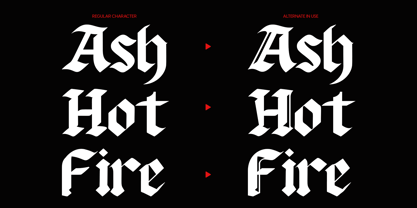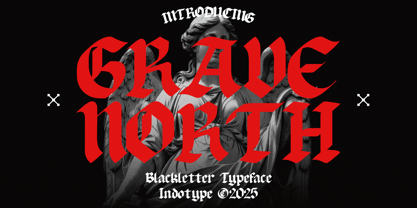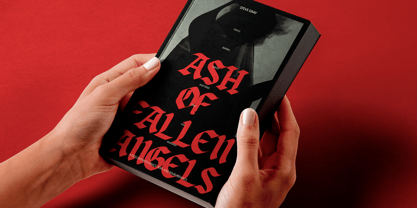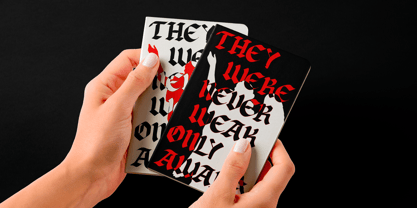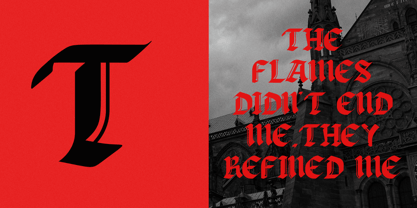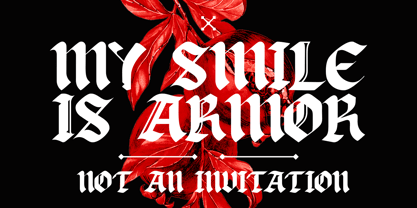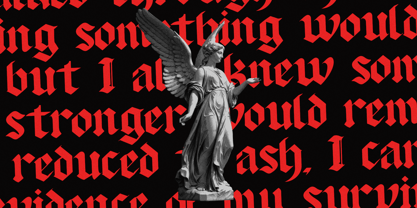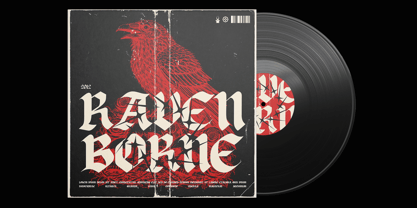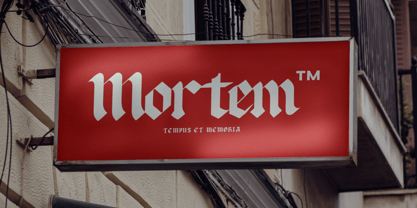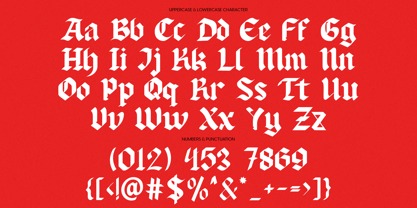
IT Gravenorth
by Indotype
The IT Gravenorth Font Family was designed by Frederik Aristaputra and published by Indotype. IT Gravenorth contains 2 styles and family package options. More about this family
Gravenorth is a commanding Blackletter typeface that carves its presence with stark, angular strokes and intricate ornamental detailing. Drawing from the deep well of Gothic calligraphy and medieval manuscript tradition, this font exudes an aura of history, gravitas, and dark elegance. Each character is crafted with a sharp precision that feels both ancient and urgently modern, perfect for projects that require undeniable authority and atmospheric depth. This is a font for making a solemn statement or building an immersive world. Gravenorth is the ideal tool for branding in heavy music, crafting titles for epic fantasy, designing occult-inspired artwork, or giving historical projects an authentic, weighty feel. It's more than typography—it's an experience carved in ink and shadow. • Ideal for: Metal Band Logos & Merch, Fantasy Book & Game Titles, Occult & Tattoo Design, Gothic Branding, Historical Reenactment, Luxury Horror Themes. • Classification: Blackletter, Gothic, Display, Decorative. • Attributes: Stark, Ornate, Authoritative, Historical, Atmospheric, Intricate, Powerful.
Designers: Frederik Aristaputra
Foundry: Indotype